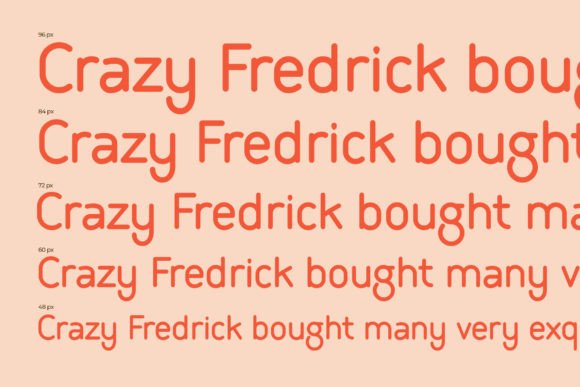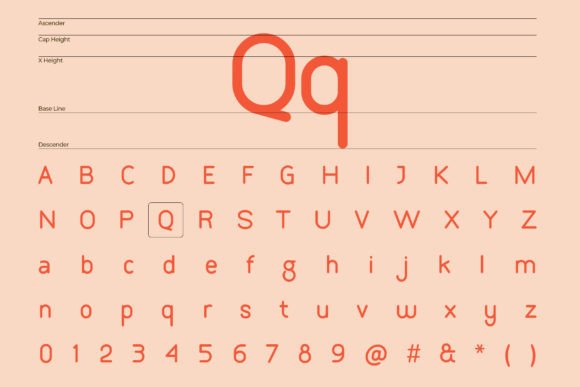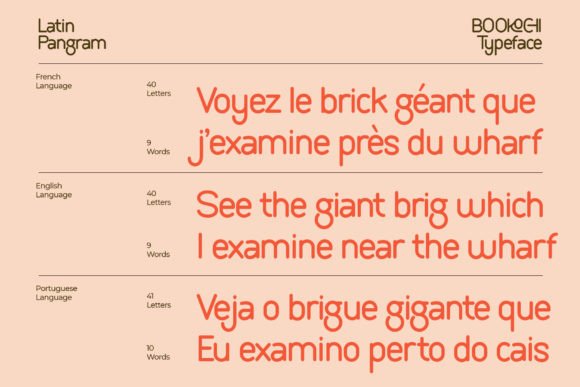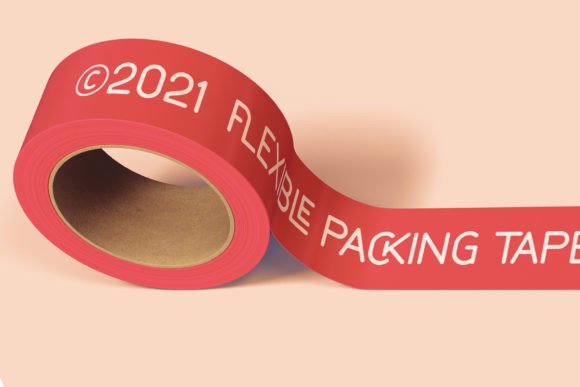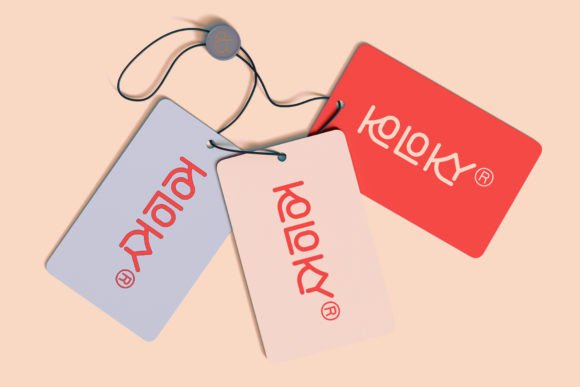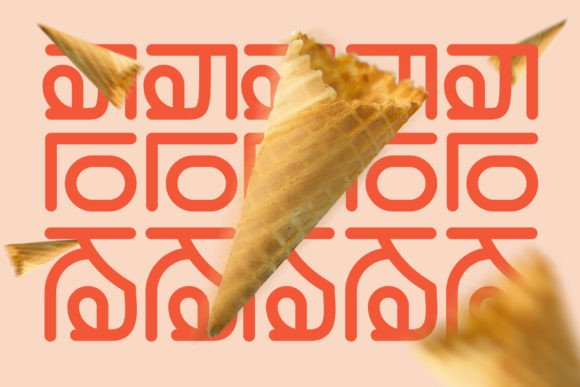
Introducing Bookochi Font: The Modern Sans Serif Marvel
In the realm of typography, a new star has emerged, captivating the attention of designers and crafters alike. Bookochi Font, a cool and modern sans serif font, is making waves with its sleek design and impressive feature set. One of the most notable advantages of Bookochi is its PUA (Private Use Area) encoding, which grants users effortless access to a wide array of glyphs and swashes. This article will delve into the world of Bookochi Font, exploring its characteristics, benefits, and uses, as well as provide insights into how to make the most of this versatile typeface.
The Design Philosophy of Bookochi Font
Bookochi Font embodies the essence of modern design, boasting clean lines, simplicity, and a dash of sophistication. Its sans serif structure lends itself to a broad range of applications, from digital media to print, and from elegant branding to more casual, creative projects. The font’s design philosophy centers around versatility and legibility, making it an excellent choice for designers seeking a typeface that can adapt to various contexts.
PUA Encoding: Unlocking Creative Potential
One of the standout features of Bookochi Font is its PUA encoding. This encoding allows users to access a vast library of glyphs and swashes, significantly expanding the font’s creative potential. With PUA encoding, designers can easily insert special characters, ligatures, and decorative elements into their work, adding a layer of depth and personality to their designs. This feature is particularly beneficial for crafters and artists who seek to infuse their projects with a unique touch.
Applications of Bookochi Font
The versatility of Bookochi Font makes it suitable for a wide range of applications. Here are a few examples:
- Branding and Logo Design: Bookochi’s modern look and feel make it an excellent choice for branding and logo design. Its clean lines and simplicity ensure that logos and brand names stand out while maintaining a professional appearance.
- Digital Media: For websites, social media posts, and digital advertising, Bookochi Font offers a fresh and contemporary look that can help capture the audience’s attention.
- Print Design: From brochures and flyers to posters and business cards, Bookochi Font’s legibility and aesthetic appeal make it a great option for various print materials.
- Crafting and DIY Projects: Crafters and DIY enthusiasts can use Bookochi Font to add a personal touch to their projects, such as handmade cards, invitations, and decorative items.
Tips for Using Bookochi Font
To make the most of Bookochi Font, consider the following tips:
- Experiment with Swashes and Glyphs: Take advantage of the PUA encoding to explore the font’s extensive library of swashes and glyphs. These elements can add a unique flair to your designs.
- Mix and Match: Don’t be afraid to combine Bookochi Font with other typefaces to create visual interest. Its simplicity makes it a great base that can be paired with various fonts.
- Adjust Font Sizes and Weights: Bookochi Font comes in different weights. Experiment with these to add hierarchy and emphasis to your designs.
Bookochi Font is a remarkable addition to the world of typography, offering a modern sans serif design coupled with the convenience of PUA encoding. Its versatility, legibility, and aesthetic appeal make it an invaluable asset for designers and crafters looking to elevate their projects. Whether you’re working on a professional branding campaign or a personal crafting project, Bookochi Font is sure to inspire and enhance your creative endeavors.